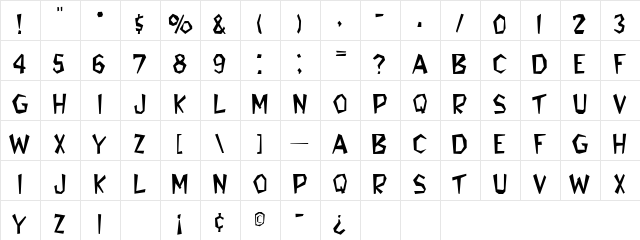
BENNIEB Regular Font Preview
BENNIEB Regular
Design Context for BENNIEB Typeface
BENNIEB is a composed and adaptable typeface that performs quietly and consistently across a wide range of design contexts.